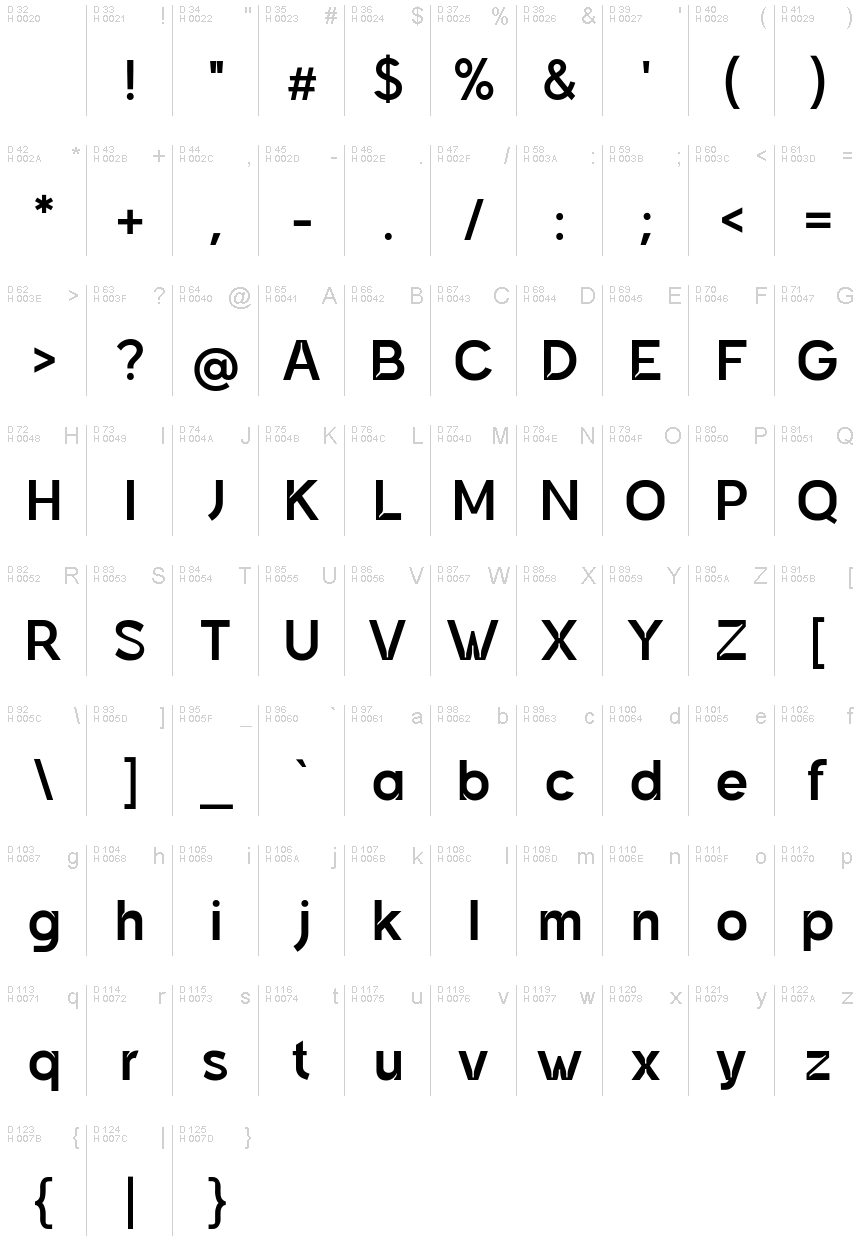
AmidoneGrotesk
Amidone Grotesk font by UI Creative is a striking sans serif typeface that stands out with its bold and modern aesthetic. The font exudes a contemporary appeal, perfect for digital and print media. Its clean lines and strong presence make it an excellent choice for headline text, branding projects, or any design requiring impactful readability.
This free font offers a versatile range of applications due to its robust structure and elegant simplicity. Amidone Grotesk's balance of style and functionality ensures it enhances both professional projects and creative layouts.